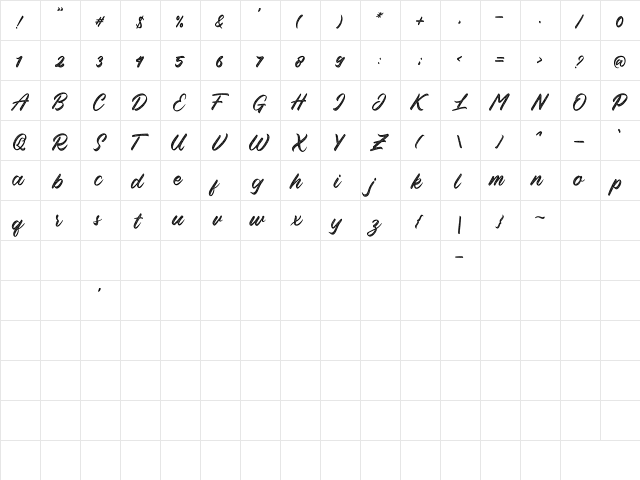
Blessed Friday Textured Regular
Design Context for Blessed Friday Textured Typeface
Blessed Friday Textured embraces imperfection — its rough, textured character adds raw authenticity to designs that want to feel lived-in and unconventional.
A strong fit for alternative music projects, graffiti-adjacent design, and anything that deliberately resists polish.
Pro Tip: Use Blessed Friday Textured at larger sizes where the texture and irregularity of each letterform can be clearly seen — it loses its character at small sizes.